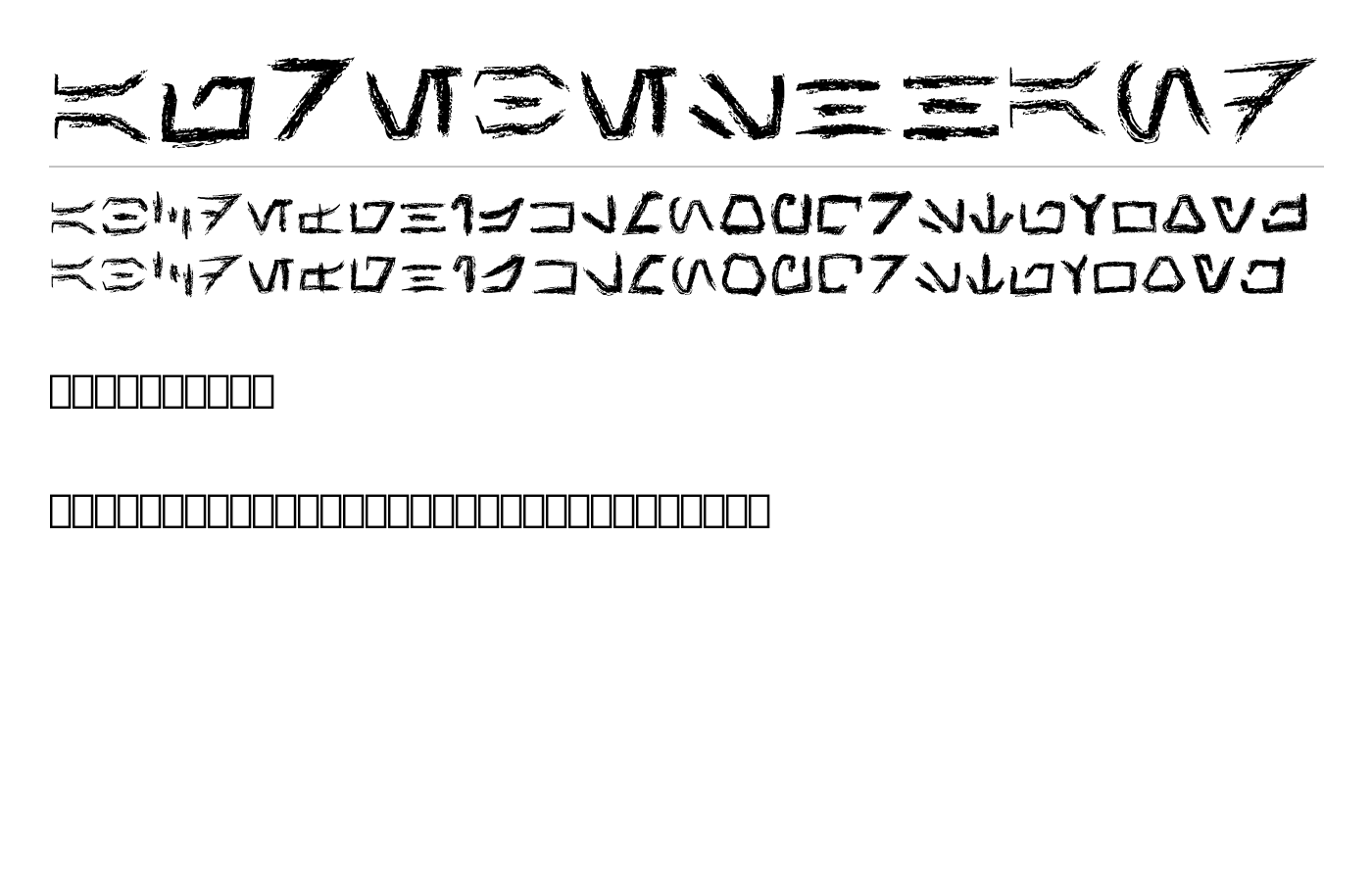
AurebeshHand is a decorative, hand-drawn display font inspired by a futuristic, alien alphabet style. Its rough, textured strokes and distinct geometric shapes give it a bold, mysterious, and sci-fi vibe, perfect for adding a unique and otherworldly touch to projects. This font is ideal for logos, posters, and creative designs that seek to evoke a sense of adventure and fantasy.
AurebeshHand Font
About AurebeshHand Font